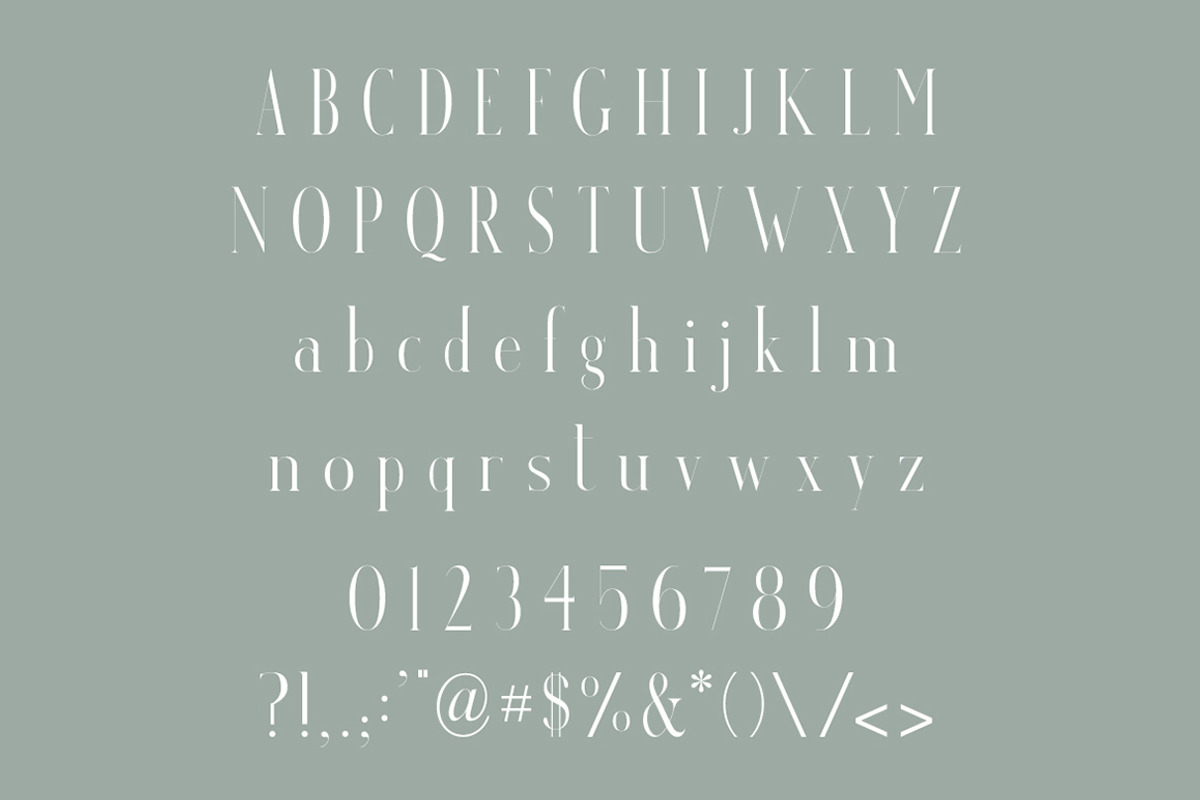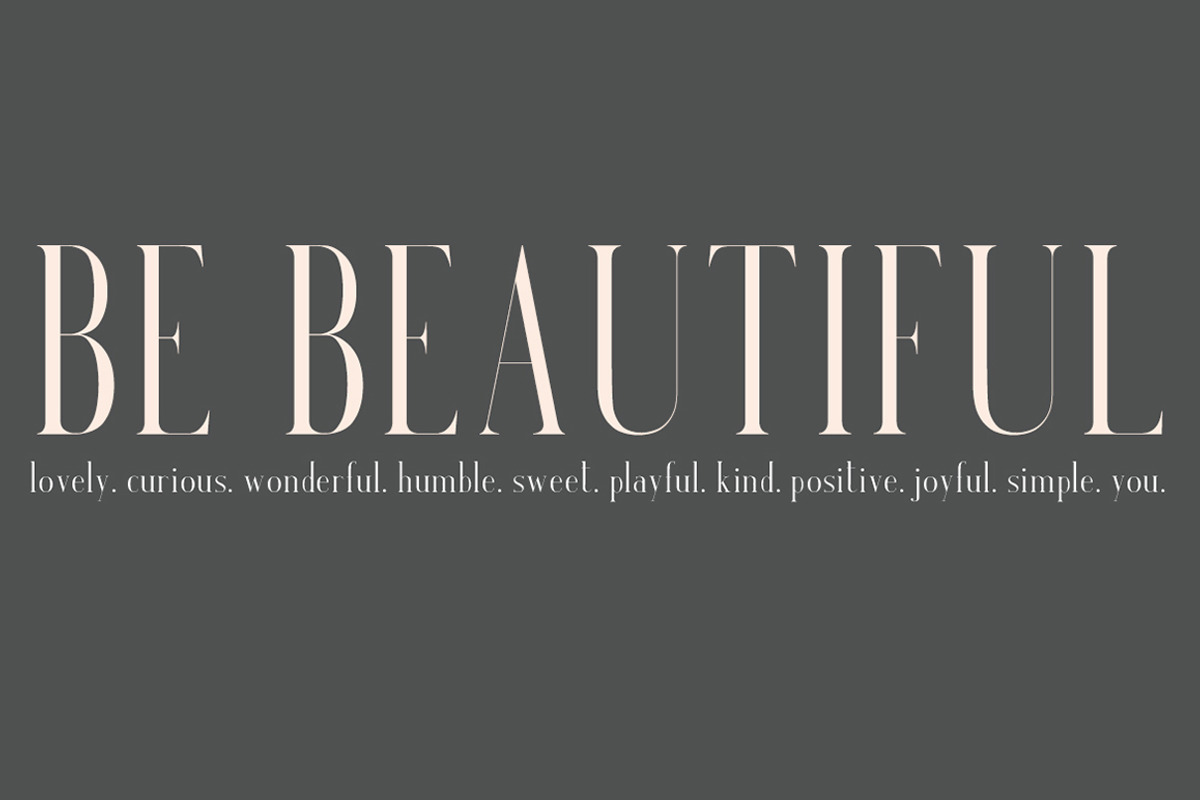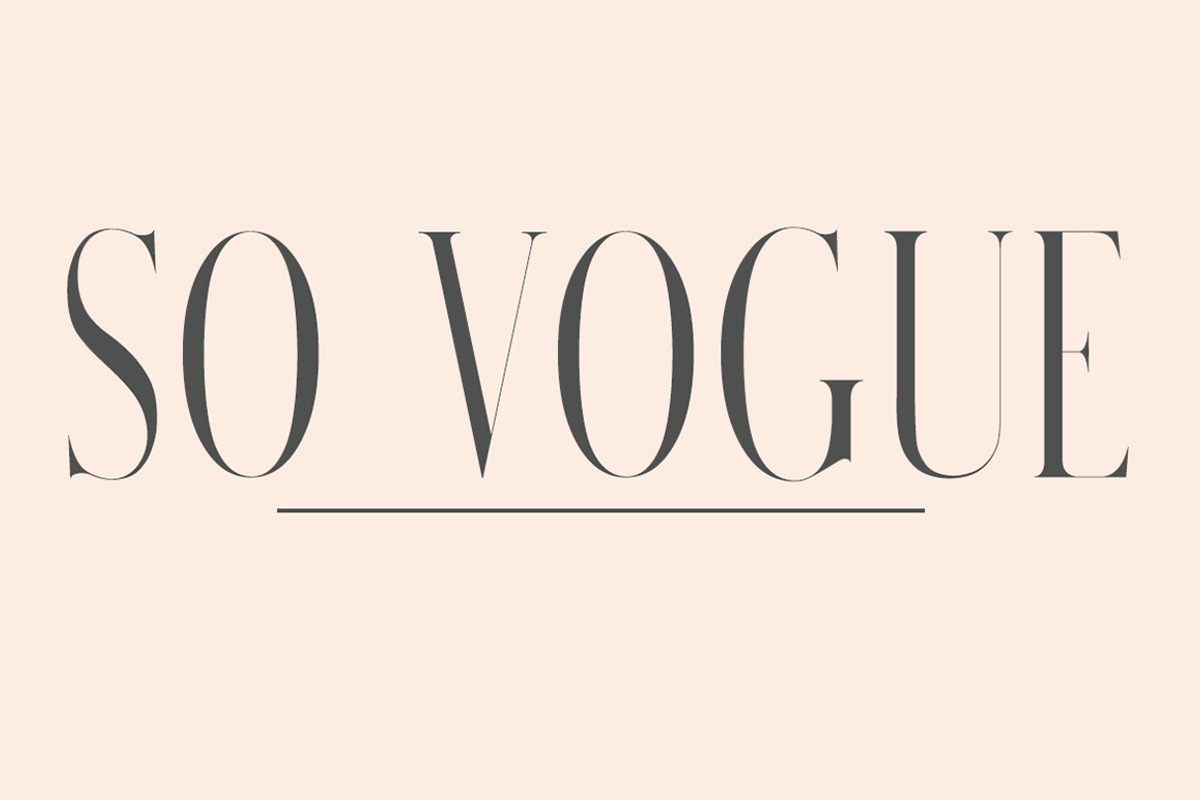
Venice is a beautiful serif typeface was designed by Jen Wagner that with sleek lines and thin serifs, reminiscent of the 1990s Vogue aesthetic. Perfect for gorgeous logos & titles, layouts & content, or large & small scale, it will pair beautifully with many fonts and work well with whatever project you’re working on.